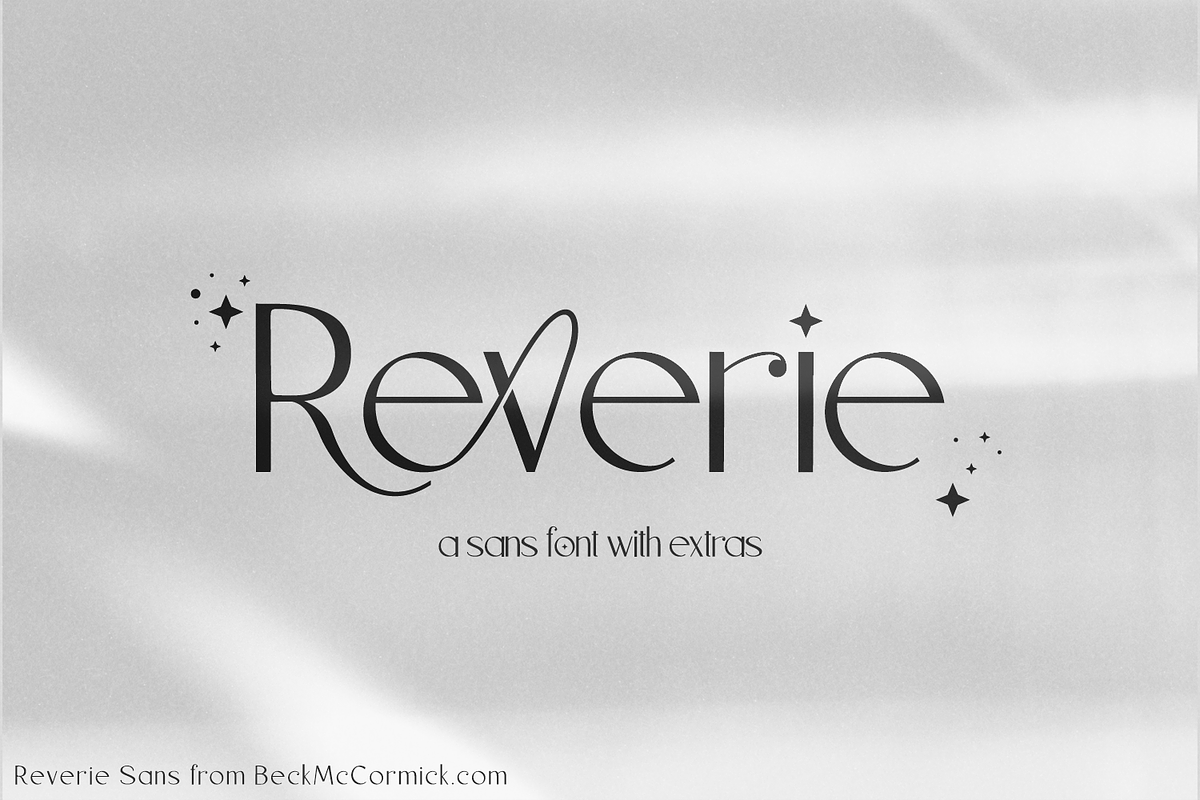
Reverie Sans Font Free Download is a modern and stylish sans-serif typeface that brings a clean and elegant touch to your design projects. With its simple yet sophisticated letterforms, Reverie Sans is ideal for branding, logos, social media graphics, and print materials where a contemporary aesthetic is desired.
Designed by Beck McCormick, Reverie Sans Font Free Download offers unique alternate characters, including glyphs adorned with stars and interconnected ligatures, adding a distinctive flair to your typography. Whether you're crafting a fashion brand's identity or designing a minimalist website, this font provides versatility and style.